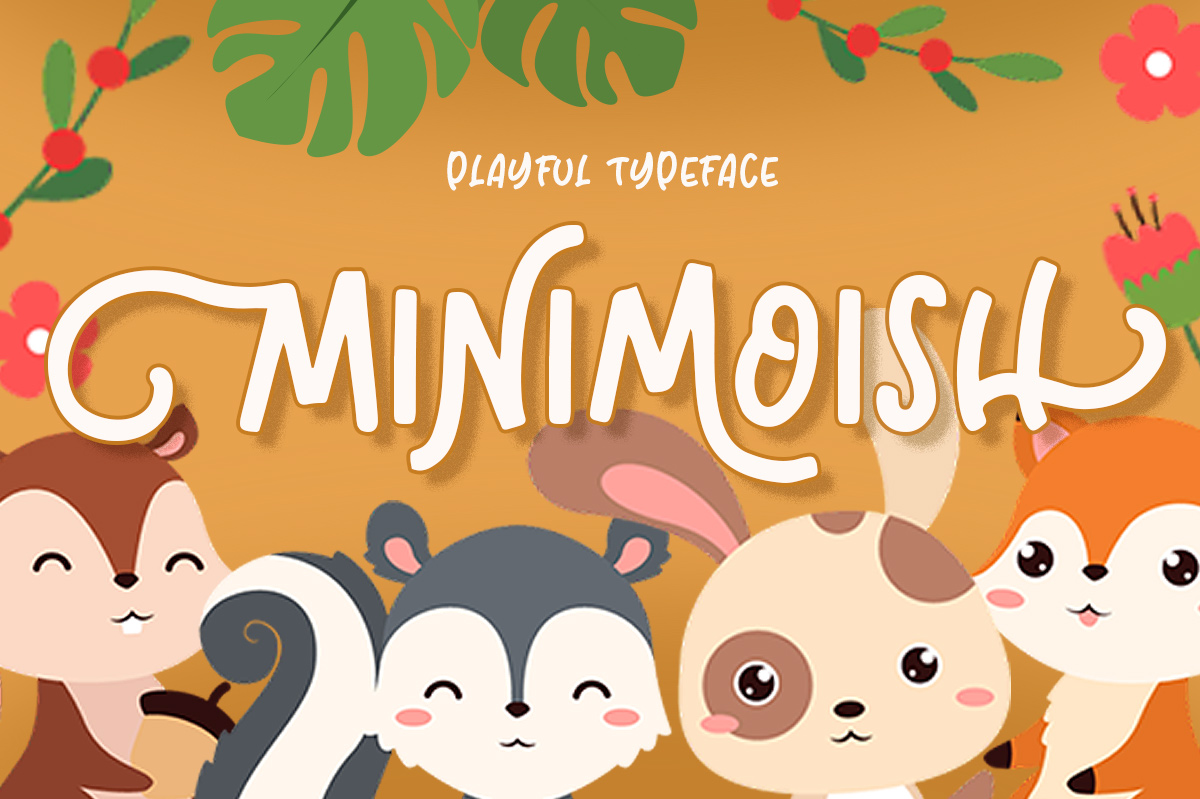
Minimoish - Playful Typeface Font
This whimsical and charming typeface is perfect for children's book illustrations, toy store branding, kids' clothing labels, playful café signage, children's entertainment venues, educational app interfaces, family-friendly restaurant menus, preschool materials, and creative workshop promotions that require a fun, child-friendly aesthetic.
Minimoish - Playful Typeface Font brings excitement to design projects with its delightful, mischievous character and miniature charm that captures the essence of childhood wonder and playful creativity. The font features rounded, bouncy letterforms with quirky details that evoke feelings of joy, innocence, and imaginative play. Its playful sophistication and whimsical presence make it an exceptional choice for brands that want to communicate child-like wonder, creative fun, and family-friendly warmth in their engaging communications.
Minimoish - Playful Typeface Font family includes various fun styles: Light, Regular, Bold, Outline, Shadow, Condensed, and Bubble versions. Each variant maintains the font's distinctive playful character while providing designers with complete flexibility for creating joyful family-oriented branding systems. The family also features toy-inspired ornaments, child-themed decorative elements, playful ligatures, and fun symbols that enhance the overall whimsical aesthetic.
When searching for child-friendly typography solutions, Minimoish - Playful Typeface Font Free Download offers an unmatched combination of charm and readability that perfectly embodies the spirit of childhood imagination and creative play. Professional designers love this font for its ability to instantly connect with young audiences while maintaining excellent legibility across various family-focused contexts. The typeface works beautifully from intimate children's invitations to large-scale playground signage, preserving its playful charm at every delightful application.
The font's playful excellence includes carefully crafted bouncy rhythms that promote visual joy, child-friendly spacing that creates comfortable reading experiences, and whimsical variations that maintain playful consistency while ensuring professional presentation. Whether you're designing for educational institutions, family entertainment venues, or children's product brands, this font delivers the magical touch that captivates young imaginations and creates memorable family experiences.